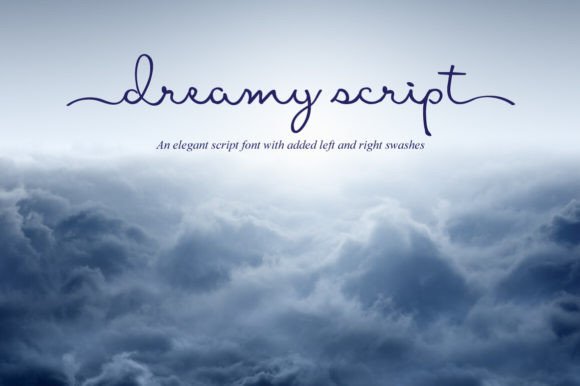
Dreamy Script Font: Elevate Your Designs with Elegance and Flair
The world of typography is vast and diverse, offering a multitude of font styles to suit every design need. Among these, script fonts hold a special place for their elegance, personality, and ability to add a touch of sophistication to any project. One such font that has captured the hearts of designers and crafty enthusiasts alike is the Dreamy Script Font. This hand-drawn, elegant, and flowing font is a versatile tool that can elevate a wide range of projects, from logo designs and party & wedding invitations to t-shirt designs, signs, magazine layouts, greetings cards, poster designs, and much more.
What is Dreamy Script Font?
Dreamy Script Font is a beautifully crafted typeface that exudes elegance and charm. Its hand-drawn nature gives it a personal and unique feel, making it stand out in the world of digital and print design. The font’s flowing lines and graceful curves make it perfect for designs that require a touch of sophistication and luxury.
Ideas for Using Dreamy Script Font
The versatility of Dreamy Script Font is one of its most appealing features. Here are some ideas on how you can use this beautiful font in your projects:
- Logo Designs: Create a memorable brand identity with a logo that uses Dreamy Script Font. Its elegance and uniqueness make it perfect for businesses that want to stand out.
- Party & Wedding Invitations: Add a touch of luxury and romance to your invitations. The font’s flowing and elegant nature makes it ideal for wedding and party invitations that require a personal and sophisticated touch.
- T-Shirt Designs: Create stunning apparel designs with Dreamy Script Font. Its readability and style make it perfect for quotes, phrases, or names on t-shirts.
- Signs: Whether it’s for a business, a wedding, or a special event, Dreamy Script Font can add a touch of elegance to any sign.
- Magazine Design: Use Dreamy Script Font to add headings, subheadings, or quotes in your magazine layouts. Its elegance can elevate the overall look of your publication.
- Greetings Cards: From birthday wishes to thank you notes, Dreamy Script Font can add a personal and heartfelt touch to your greeting cards.
- Poster Design: Create eye-catching posters for events, promotions, or informational purposes. The font’s unique style can help your poster stand out.
Benefits of Using Dreamy Script Font
There are several benefits to using Dreamy Script Font in your designs:
- Elegance: The font adds a level of sophistication and elegance to any design.
- Versatility: It can be used across a wide range of projects, from digital designs to print materials.
- Uniqueness: Its hand-drawn nature makes it unique and can help your designs stand out.
- Readability: Despite its elegance and flowing lines, the font remains highly readable, making it suitable for both headings and body text.
Tips for Using Dreamy Script Font Effectively
To get the most out of Dreamy Script Font, consider the following tips:
- Pair with Simple Fonts: For best results, pair Dreamy Script Font with simpler fonts for body text or other elements to maintain visual balance.
- Adjust Size and Color: Experiment with different sizes and colors to make the font stand out or blend in, depending on your design needs.
- Use in Moderation: While the font is elegant and beautiful, using it in moderation can make it more impactful. Consider using it for headings or key messages.
Dreamy Script Font is a powerful tool for designers and crafty enthusiasts looking to add a touch of elegance and personality to their projects. Its hand-drawn, elegant, and flowing nature makes it versatile and suitable for a wide range of applications. By understanding its features, exploring various usage ideas, and following tips for effective use, you can elevate your designs and create memorable impressions.
In the world of design, typography plays a crucial role in conveying messages and creating impressions. With Dreamy Script Font, you have a beautiful typeface at your disposal that can add sophistication, elegance, and a personal touch to your projects. So, explore its potential, experiment with different designs, and discover how Dreamy Script Font can transform your creative endeavors.